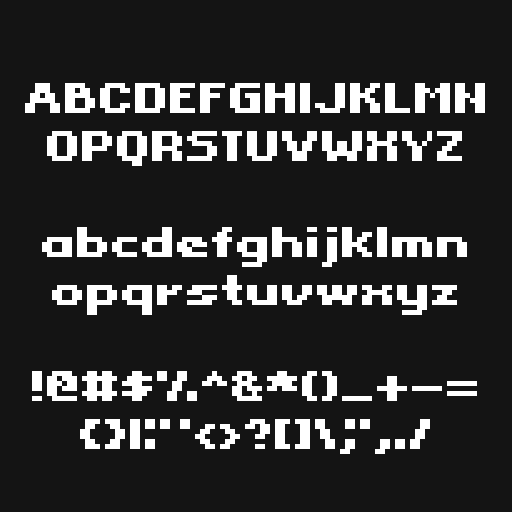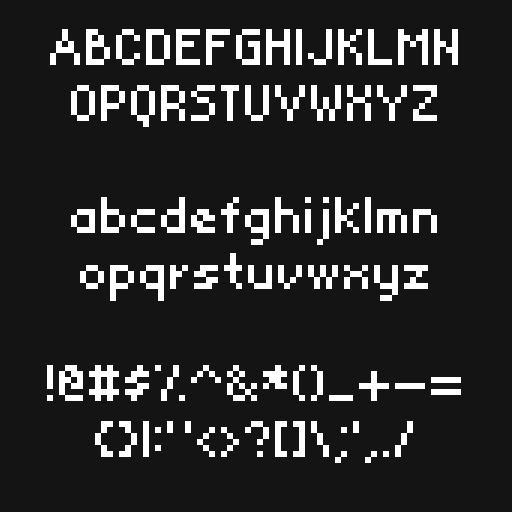
Bit Byte - Pixel Font
Bit Byte
• A cute, charming pixel font with a classic feel — minimal, balanced, and clear.
Size
• Height: 8px | Average Width: ~4px (variable)
• Best used at multiples of its height to preserve proper pixelation.
Base Characters
• A - Z | a - z | 0 - 9
• ! " # $ % & ' ( ) * + , - . / : ; < = > ? @ [ \ ] ^ _ { | } ~ ‘ ’ “ ”
Accented Characters
• À Á Â Ã Ä Å Æ Ç Ð È É Ê Ë Ì Í Î Ï Ñ Ò Ó Ô Õ Ö Ø Œ Ù Ú Û Ü Ý
• à á â ã ä å æ ç è é ê ë ì í î ï ñ ò ó ô õ ö ø œ ß ù ú û ü ý ÿ ¿ ¡ ð þ Þ
Styles
• Regular
• Bold